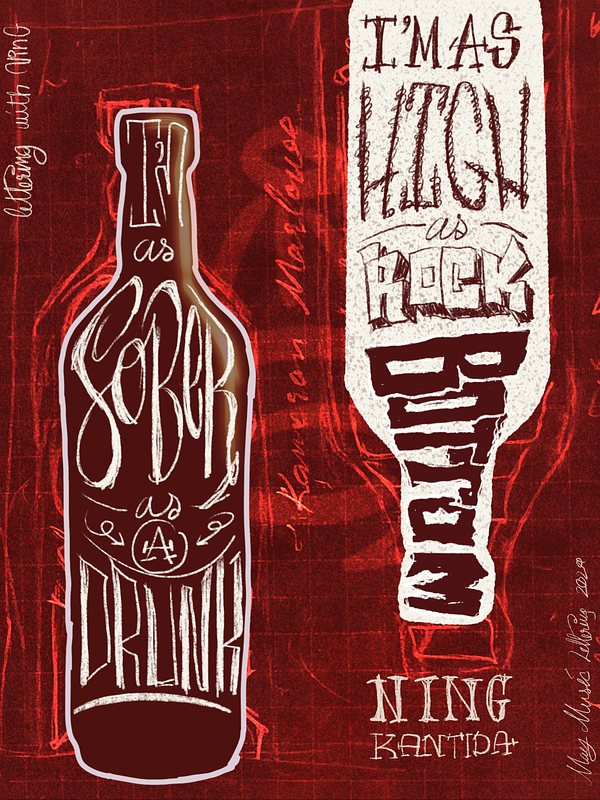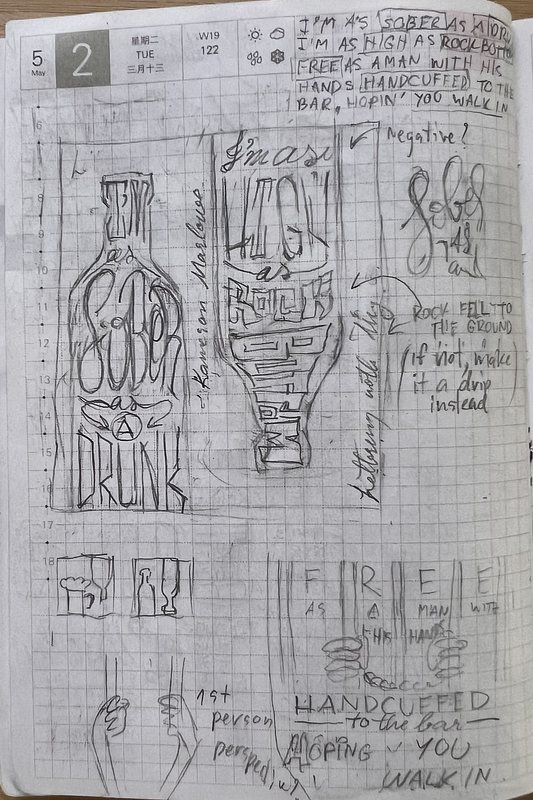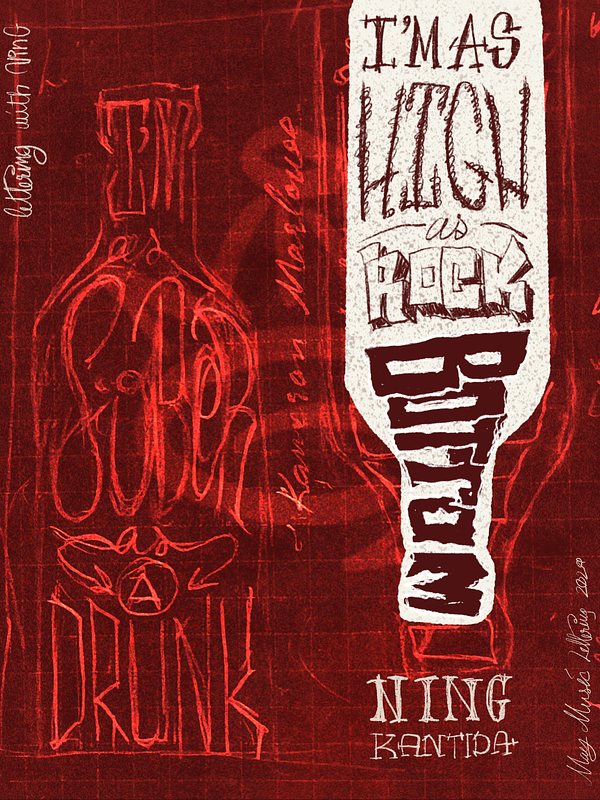
The Lyrics Lettering 00002-Sober As a Drunk by Kameron Marlowe
The Work
My lettering design for Sober As a Drunk by Kameron Marlowe
The Inspiration
The inspiration for this lettering comes from Kameron Marlowe's song "Sober as a Drunk." I came across the song randomly a few years back, and was captivated by its expressive lyrics and analogies. The clever wordplay of "I'm as sober as drunk, I'm as high as rock bottom", capturing the essence of a person in denial so perfectly. The music is great too, flowing flawlessly and making it a fun song to sing. So, I decided to create lettering for these lyrics.
The Process
Initially, I considered incorporating three lines in the design but ultimately opted to focus on two, leaving the last line, "Free as a man with his hands handcuffed to the bar, hoping you walk in", to make its own design in the future. Because it didn't flow well visually with the other two lines.
After deciding which lines would be in the design, I visualized the phrase "rock bottom", imagining falling into a pit. By drawing a bottle flipped upside down, it represents the depths of rock bottom. Embracing simplicity, the design featured two bottles with negative space for one to enhance the visual of the falling into the abyss.
Since I decided to skip clean line work for this May Music Challenge. The process was straightforward: draw the bottles, flip one for the pit effect, add the lettering styles. Drafting, sketching, adding colors — and it's done. I like how it turned out, simple and effective.